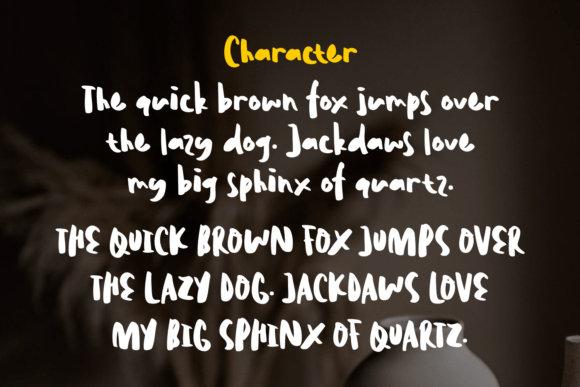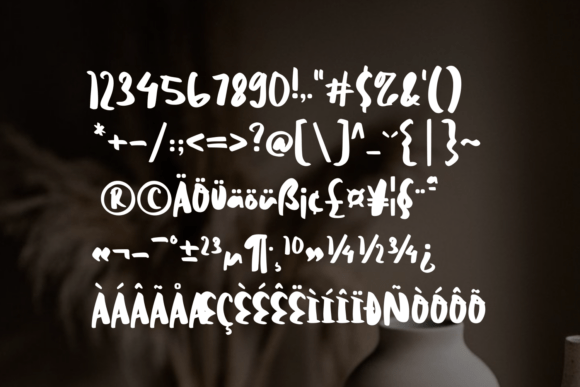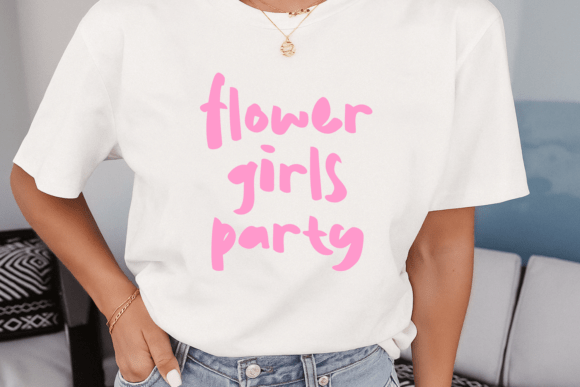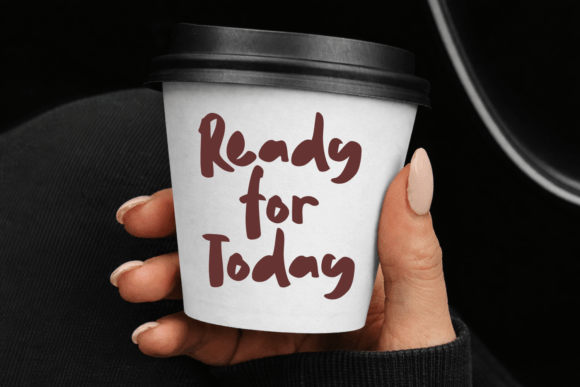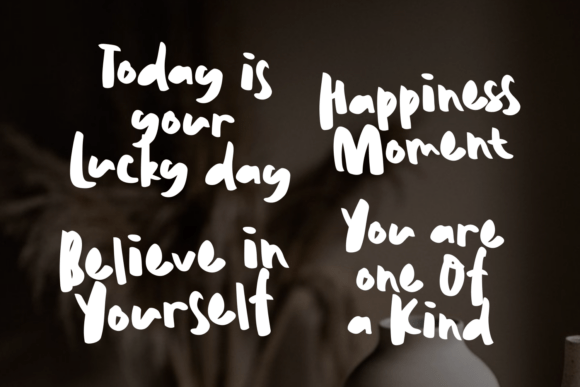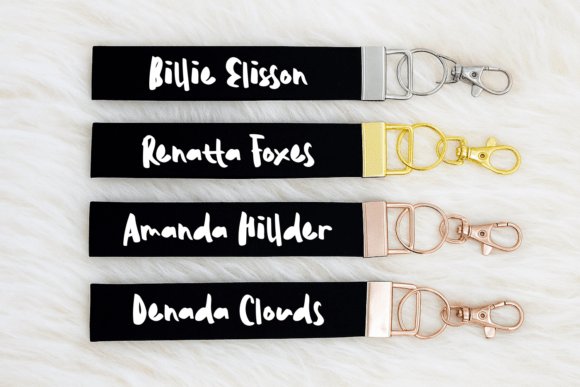
Discover the Art of Authentic Design with Handrawn Rossella Font
Have you ever found yourself scribbling notes in a worn notebook or jotting down ideas on a coffee-stained napkin? There’s something special about handwritten notes that adds a touch of personality and warmth to our work. That’s exactly what the Handrawn Rossella Font is all about – capturing the essence of handwritten letters and infusing them into your designs.
This delightful typeface is perfect for designers seeking to add a touch of authenticity and character to their work. With its organic and whimsical charm, Handrawn Rossella Font is ideal for brand identities, digital media visuals, invitations, and any other creative project that needs a tender yet persuasive tone. By incorporating this font into your designs, you’ll be able to create a unique emotional connection with your viewers, setting your work apart from the ordinary.
Key Features of Handrawn Rossella Font
- Unique Characteristics: Handrawn Rossella Font features a distinctive, hand-drawn style with irregular strokes and subtle imperfections, giving it a unique and artistic feel.
Handrawn Rossella Font Review
Overall, I think the Handrawn Rossella Font is a charming addition to any design project. ✨ The unique, hand-drawn aesthetic is sure to grab attention and add a touch of whimsy to your work.
- ✨ The font’s organic feel is perfect for creating a sense of warmth and approachability.
- ✨ The letterforms are well-crafted and easy to read, even at smaller font sizes.
- ✨ The font’s versatility makes it suitable for a wide range of applications, from branding to editorial design.
- ⚠️ The font may not be the best choice for projects that require a high level of precision or sophistication.
- ⚠️ Some users may find the font’s irregularities distracting or difficult to work with.
- ⚠️ The font’s limited character set may make it less suitable for longer blocks of text.
In terms of overall impression, I think the Handrawn Rossella Font is a solid choice for designers looking to add a touch of personality to their work. While it may not be the best fit for every project, it’s definitely worth considering for the right application.
To get the most out of the Handrawn Rossella Font, try:
- Pairing it with distressed or vintage textures for a unique look.
- Using it for quotes, titles, or headings to add a touch of elegance.
- Experimenting with different font sizes and colors to create visual interest.
The Handrawn Rossella Font is perfect for:
- Artistic projects and illustrations.
Alternatives to Handrawn Rossella Font
Great Vibes Font is a beautiful, handwritten font that is perfect for creating a casual and friendly atmosphere. It is ideal for use in invitations, greeting cards, and other creative projects where a personal touch is desired.
Compared to Handrawn Rossella Font, Great Vibes Font has a more relaxed and carefree feel. While Handrawn Rossella Font has a more elegant and refined look, Great Vibes Font is more suited for everyday use.
Carolyna Pro Font is a modern, handwritten font that is perfect for creating a sophisticated and elegant look. It is ideal for use in branding, advertising, and other high-end projects where a touch of luxury is desired.
Compared to Handrawn Rossella Font, Carolyna Pro Font has a more polished and refined look. While Handrawn Rossella Font has a more organic and hand-drawn feel, Carolyna Pro Font is more suited for corporate and professional use.